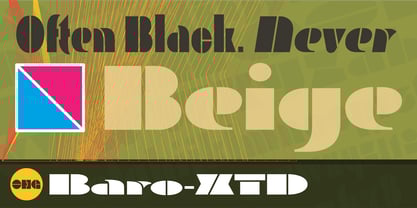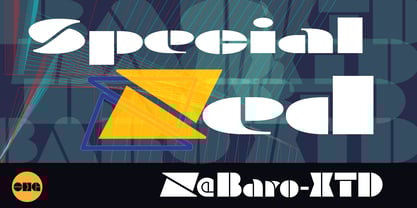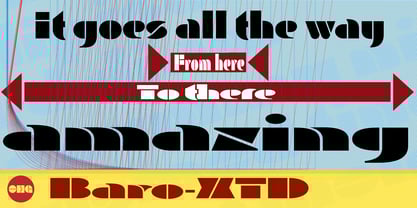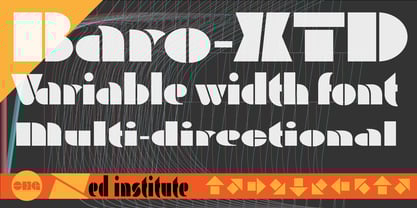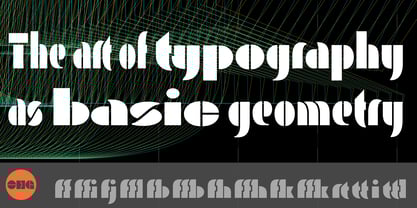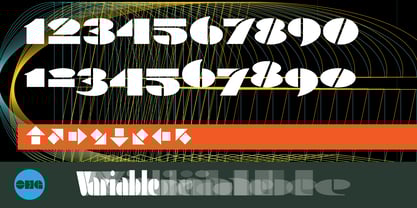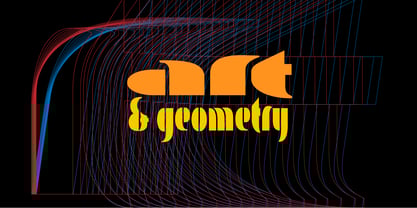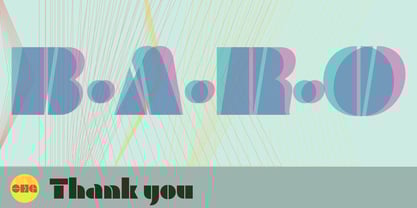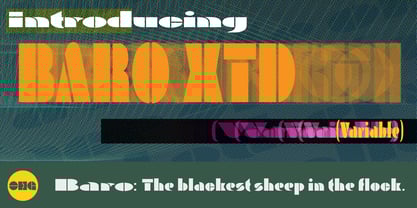
Baro B
Baro B by Our House Graphics
Baro B Font Family was designed by Russell A. McGorman and published by Our House Graphics. Baro B contains 3 styles and family package options. More about this family
About Baro B Font Family
Baro is a powerful, fun and expressive font, great for loud, cheerful and super-fat headlines and packaging for odd novelty toys. With its bold and distinctive stylized geometric forms, it is ideal for logos, heavy machinery and wacky party invites. Baro had its beginning in a handful of rigidly geometric uppercase letters from an unidentified 1960�s or 70�s era press-down lettering font, which in turn was possibly a revival of a 20�s era Art Deco font. The exercise quickly expanded into a complete typeface with 300+ characters, including several catch words (word glyphs), stylistic alternates, discretionary ligatures, multilingual support and both lining and old style numerals. Baro maintains much of the characteristic geometric rigidity of the original handful of letters, but � With the addition of just a little bit of flare, a bit of cheerfulness breaks through, like a wink and a smile on the face of a fat and otherwise stern policeman.